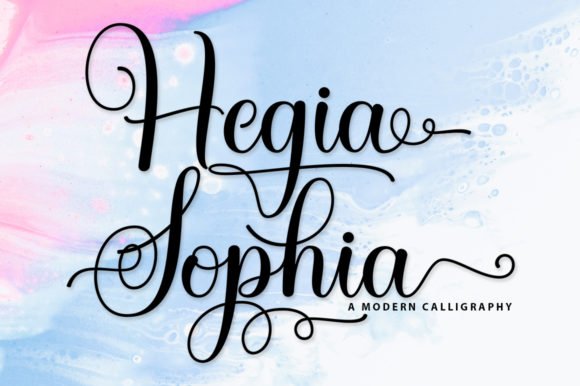
Discover the Timeless Elegance of the Hegia Sophia Font
As a designer, there’s nothing quite like the thrill of creating a custom wedding invitation that perfectly captures the essence of a couple’s special day. The right font can make all the difference, and for those seeking a touch of sophistication and romance, the Hegia Sophia Font is an ideal choice. With its delicate, handwritten feel, this font is sure to leave a lasting impression on your clients and their guests.
Whether you’re designing wedding invitations, thank you cards, or logos, the Hegia Sophia Font is a versatile and elegant solution. Its PUA encoding makes it easy to access all the glyphs and swashes you need, giving you the creative freedom to experiment and push the boundaries of your design. For designers looking to add a personal touch to their work, the Hegia Sophia Font is an invaluable asset that’s sure to elevate your projects to new heights.
- Font Family: Hegia Sophia is a unique, high-quality font family designed to provide a classic and elegant look.
- Language Support: Hegia Sophia Font supports a wide range of languages, including Latin, Cyrillic, Greek, and more, making it suitable for multilingual designs.
- Unique Characteristics: Hegia Sophia Font features intricate details, elegant curves, and ornate flourishes, setting it apart from other font families and adding a touch of sophistication to designs.
Hegia Sophia Font Review
First off, I want to say that I love the ✨ aesthetic of Hegia Sophia Font. It’s a beautiful, elegant script font that would be perfect for any project that requires a touch of sophistication. The font’s ✨ rounded edges and ✨ organic feel make it feel soft and approachable, which is a great contrast to the more rigid, geometric fonts that are so popular these days.
Another thing that works well for Hegia Sophia Font is its ✨ versatility. It can be used for a wide range of projects, from wedding invitations to restaurant menus, and it looks great in both digital and print formats. The font also comes in a variety of weights, which makes it easy to adjust the look and feel to suit your needs.
- ⚠️ Limited character set: While Hegia Sophia Font is a beautiful font, it’s not without its limitations. One of the biggest drawbacks is its limited character set, which makes it difficult to use for projects that require a lot of special characters or languages.
- ⚠️ Not suitable for small text: Due to its script nature, Hegia Sophia Font can be difficult to read in small sizes. If you plan to use the font for body text or other small-scale applications, you may want to consider a different font.
Overall, I would give Hegia Sophia Font a solid 4 out of 5 stars. While it has some limitations, its beauty and versatility make it a great choice for many projects. If you’re looking for a font that will add a touch of elegance to your design, Hegia Sophia Font is definitely worth considering.
Tip: Use the Hegia Sophia Font for headings and titles to add a touch of elegance to your designs.
Tip: Use the Hegia Sophia Font in combination with other elegant fonts to create a sophisticated look.
Tip: Use the Hegia Sophia Font for headings and titles to add a touch of sophistication to your presentations and documents.
The Hegia Sophia Font is perfect for:
- Luxury branding and packaging
- High-end event promotions
Alternatives to Hegia Sophia Font
Montserrat is a sans-serif font designed by Julieta Ulanovsky. It’s a great alternative for headings and titles due to its geometric and modern feel. Montserrat is ideal for digital media and can be used for a wide range of projects, from logos to signage. Compared to Hegia Sophia Font, Montserrat is more minimalist and lacks the ornate details, making it a great choice for modern and clean designs.
What font sizes and styles are available in Hegia Sophia?
Hegia Sophia includes a range of font sizes and styles, including regular, bold, italic, and bold italic. The font also includes a range of optical sizes, from 8 to 144 points, to ensure optimal readability at different magnifications.